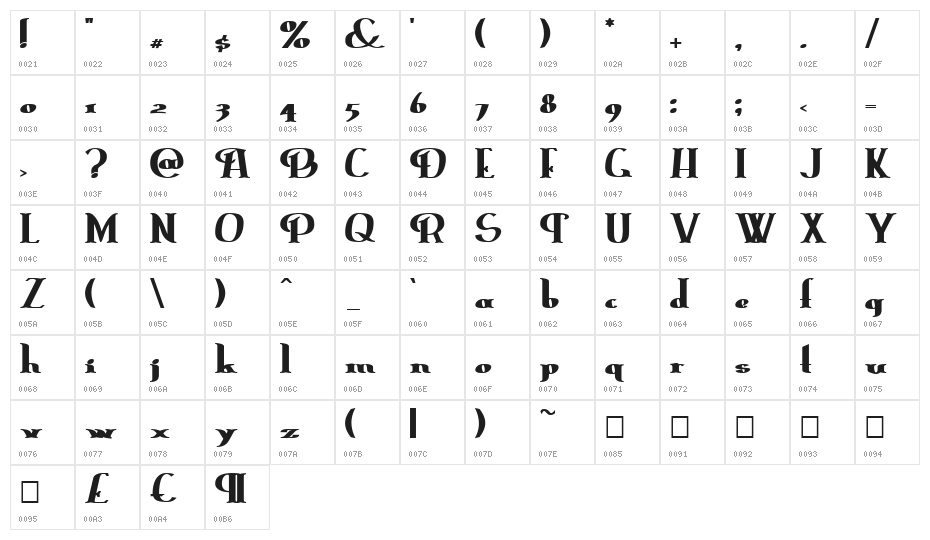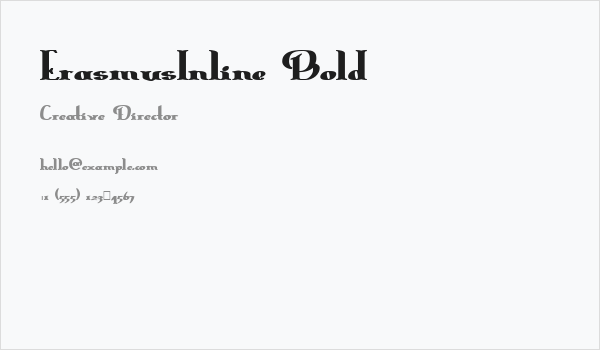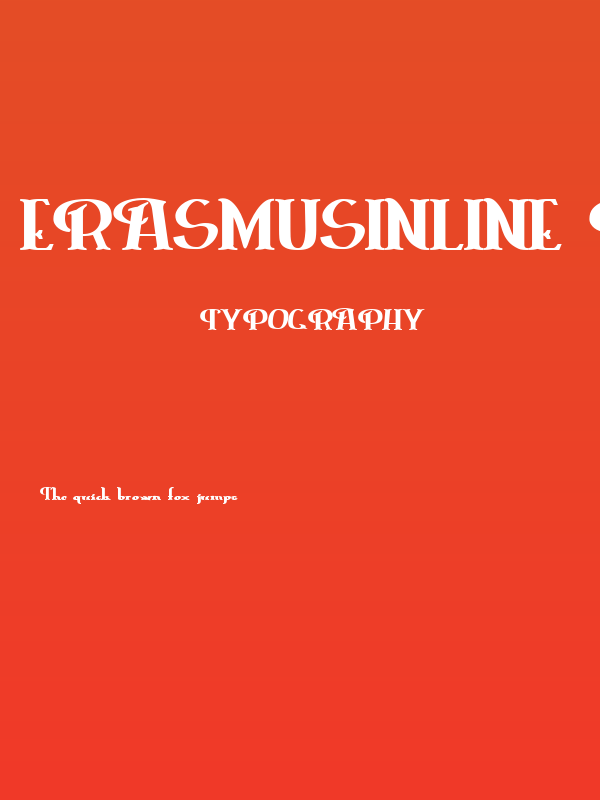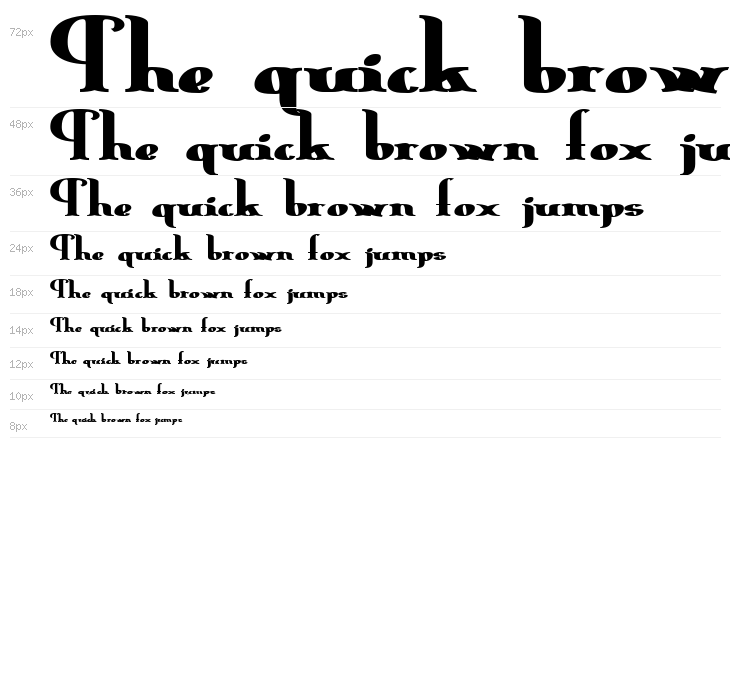
ErasmusInline Bold Font
ErasmusInline Bold Description
This font features a bold and dramatic style with an inline design that adds depth and dimension to each character. The uppercase letters are characterized by strong, thick strokes with a slight curvature, giving them a dynamic and powerful appearance. The lowercase letters maintain a consistent weight, with unique flourishes that add a touch of elegance. Numbers are bold and easily readable, while special characters are designed with the same attention to detail, ensuring a cohesive look across all glyphs. The overall aesthetic is both classic and modern, making it versatile for various design applications.
Overall StyleClassic, Modern
Proposed ProjectsIdeal for branding, poster design, book covers, and any project requiring a bold statement.